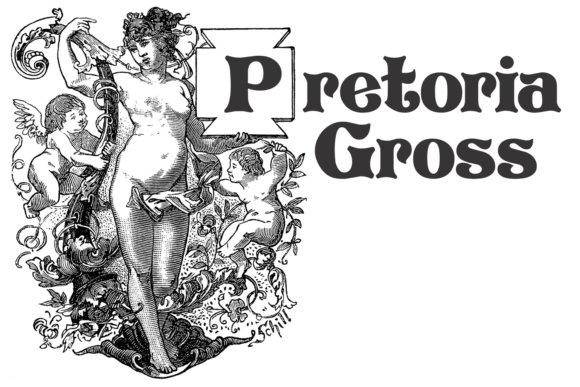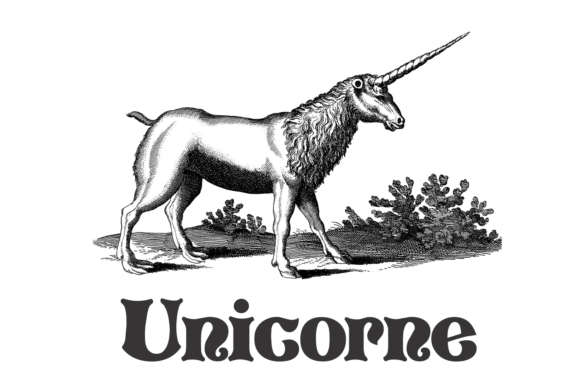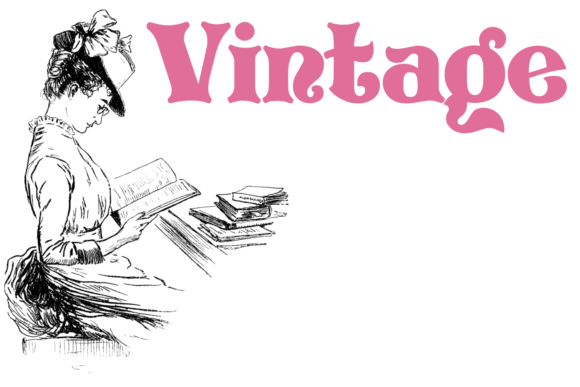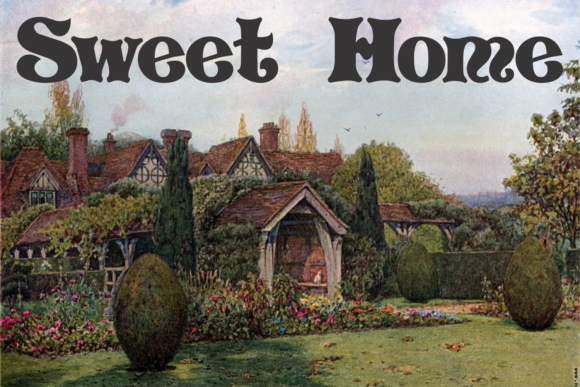
The PretoriaGross was designed with inspiration from art nouveau, packed full of vivacious curves. It contains a limited set of characters, and works best when used for display purposes.